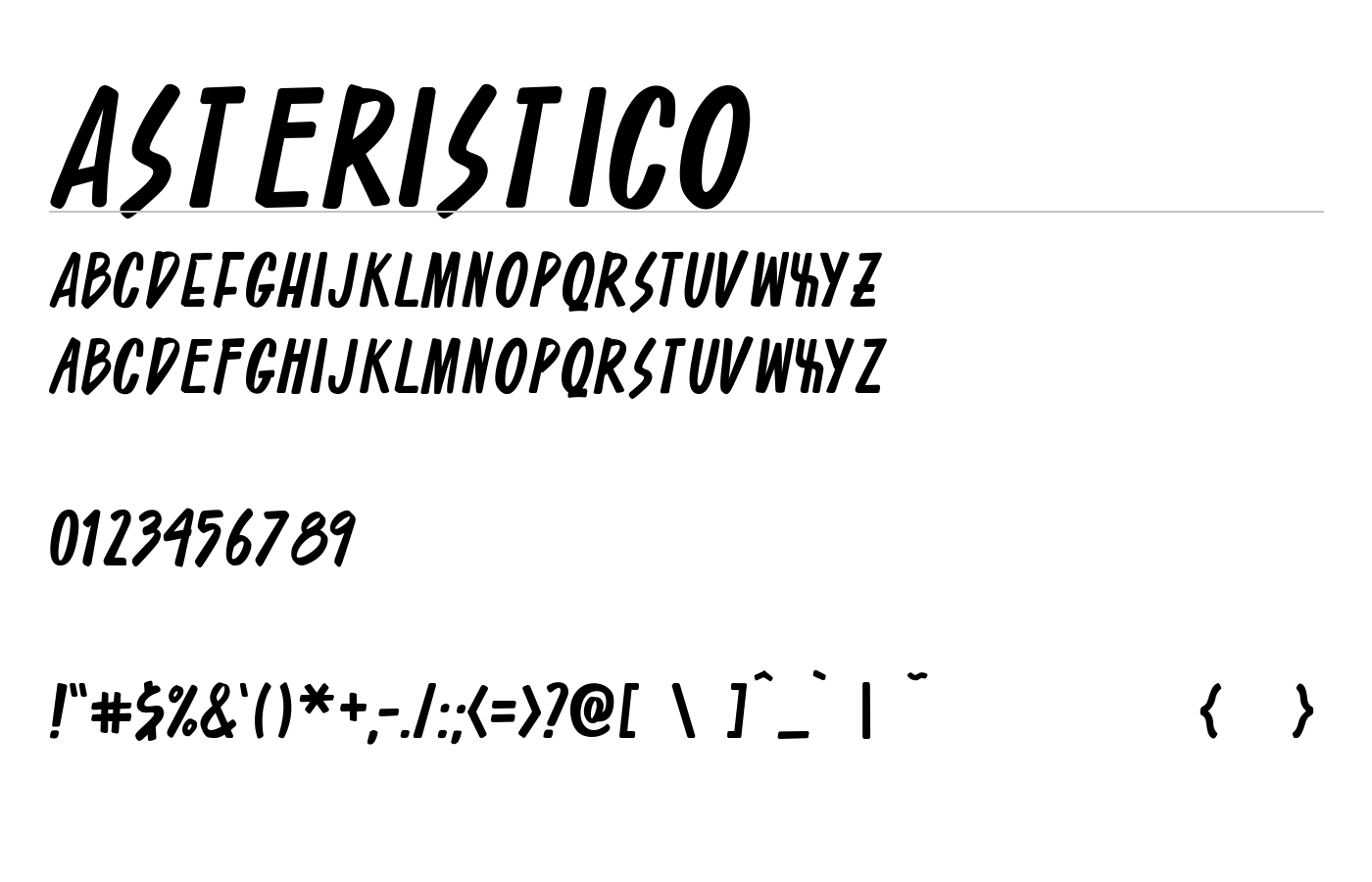
Asteristico is a lively, sans serif display font with a slightly condensed, italicized style that adds a dynamic, handwritten feel. Its consistent medium weight and smooth, rounded strokes give it an inviting yet energetic character, making it ideal for playful branding, headlines, and creative projects that want a modern but casual look. This font works well where personality and approachability are key, such as in packaging, posters, and informal editorial designs.
Asteristico Font